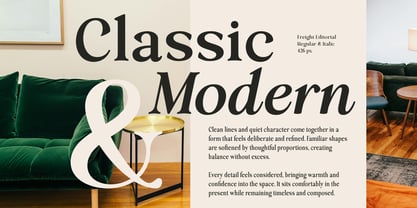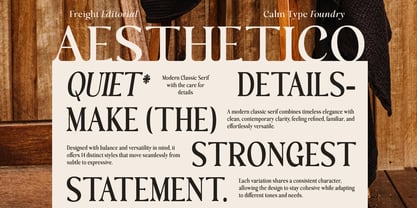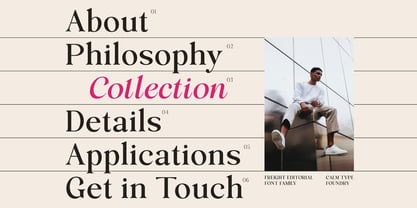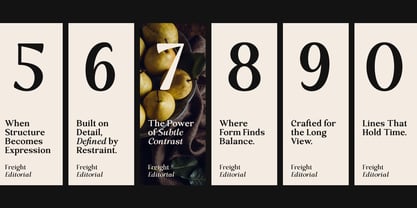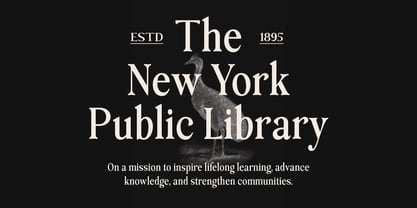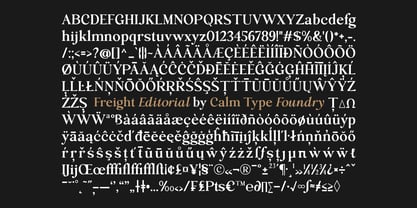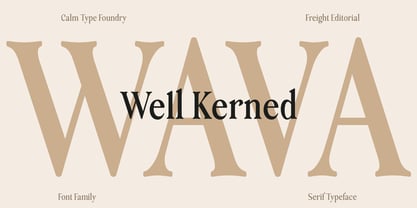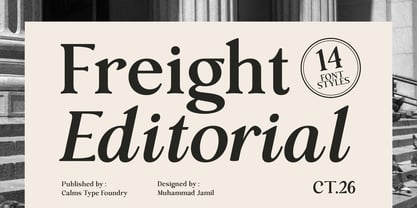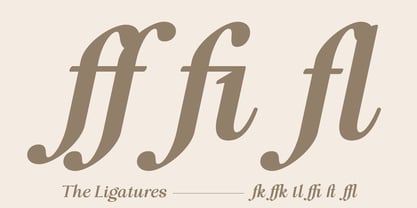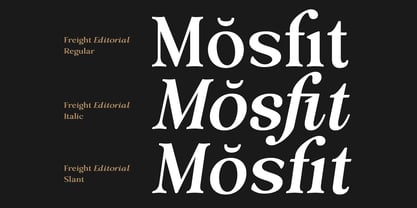
Freight Editorial
by Calms Type Foundry
The Freight Editorial Font Family was designed by Muhammad Jamil and published by Calms Type Foundry. Freight Editorial contains 14 styles and family package options. More about this family
Freight Editorial is a premium serif typeface designed for professional editorial and branding needs. This font features elegant characters with subtle bold-thin contrast, soft serif shapes, and balanced, easy-to-read letter proportions. Suitable for headlines, body text, magazines, books, branding, posters, and even digital-class designs. With a total of 14 font styles, Freight Editorial delivers on a wide range of design needs, from classic to modern. This typeface conveys a timeless, sophisticated, and professional feel, making it an ideal choice for projects that prioritize aesthetics and readability. Features: 14 Font Styles Elegant editorial serif High legibility for long text Suitable for print & digital Ideal for branding and publications
Designers: Muhammad Jamil
Foundry: Calms Type Foundry
Freight Editorial
About Calms Type Foundry
Calms Type Foundry is an independent typography design studio focused on developing high-quality digital typefaces. Combining research, contemporary aesthetics, and technical precision, we create elegant scripts and bold display fonts designed for branding, packaging, editorial design, and a variety of other visual applications. With attention to detail and cross-platform performance, Calms Type Foundry is committed to providing reliable and versatile typographic solutions that meet the demands of modern design.